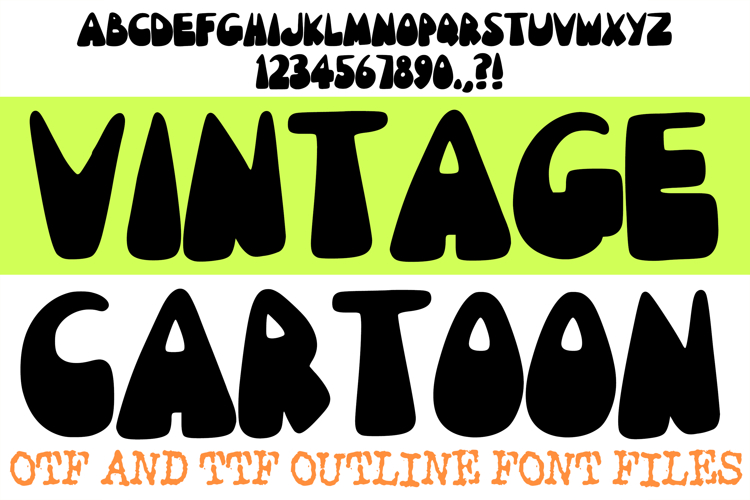
Step back in time with the Vintage Cartoon Font, a bold and playful display typeface that captures the nostalgic energy of classic animation. Featuring chunky, hand-drawn silhouettes and an organic, slightly irregular flow, this font is the perfect choice for retro-inspired branding, humorous apparel, comic book titles, and energetic social media graphics.
The heavy-weighted characters and soft, rounded edges give your text a friendly yet impactful presence that feels both timeless and trendy. Whether you are designing a logo for a creative studio, crafting custom stickers, or working on whimsical posters, the Vintage Cartoon Font provides a professional, artisan-crafted look with a distinct personality.
Why Your Designs Will Stand Out
Retro Animation Aesthetic: Every character is designed with the exaggerated, bouncy style found in vintage cartoons.
Bold High-Contrast Silhouettes: The thick, chunky letterforms ensure your headlines remain readable and eye-catching across all backgrounds.